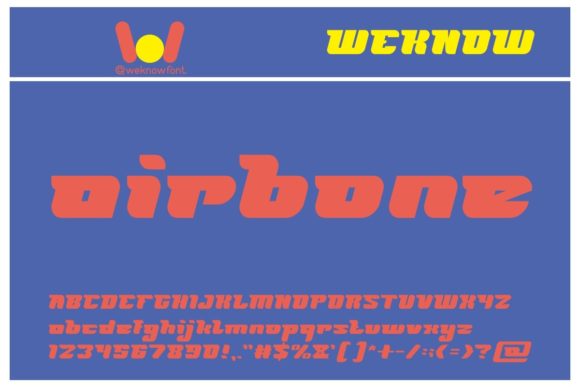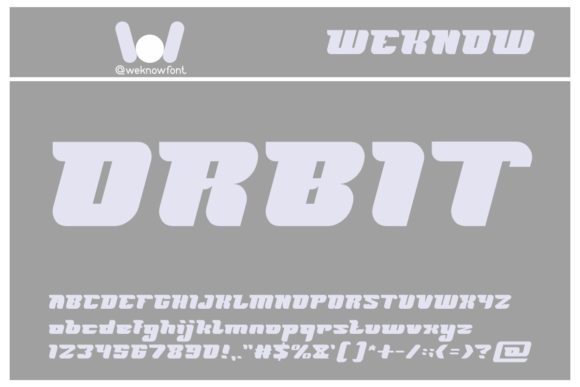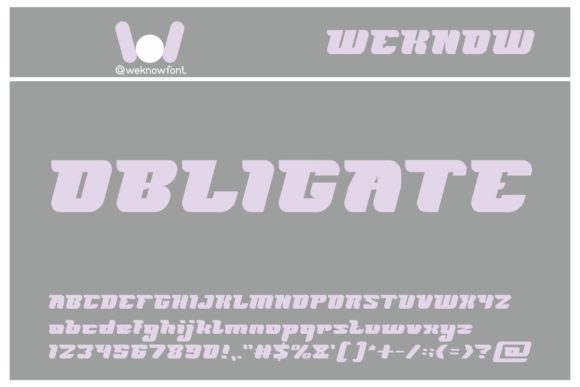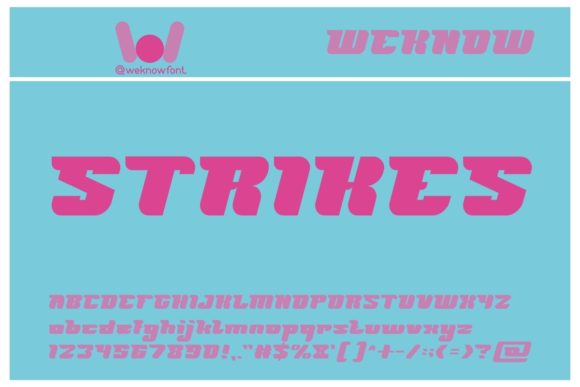
The Future of Typography: Introducing Futurism Font
Have you ever been scrolling through your social media feed, and suddenly a post catches your eye because of its bold, futuristic typography? You might have been mesmerized by a logo or headline that screams innovation and progress. That’s the magic of the Futurism Font, a techno-sci-fi themed font that’s perfect for designers looking to give their projects a cutting-edge feel.
As a designer, you know how crucial the right font can be in setting the tone for your creative project. That’s why the Futurism Font is such a valuable asset. With its sleek, modern design, it’s ideal for logos, logotypes, headlines, and corporate identities. Whether you’re working on a movie poster, a music album cover, or a website, the Futurism Font is sure to make your design stand out from the crowd.
Futurism Font Key Features
- Font Family: Futurism Font is a sans-serif font family with 12 styles, including regular, bold, italic, and bold italic.
- Character Count: The font family contains over 1,300 glyphs, including Latin, Cyrillic, and Greek alphabets, as well as various punctuation marks and symbols.
- Unique Characteristics: Features a distinctive geometric shape with clean lines, rounded edges, and a futuristic feel, making it ideal for sci-fi, technology, and modern design projects.
- Language Support: Supports multiple languages, including English, Spanish, French, German, Italian, Portuguese, and many others, making it a versatile choice for global design applications.
Futurism Font Review
Futurism Font is a bold and eye-catching typeface that grabs attention. ✨ The sleek lines and geometric shapes make it perfect for futuristic or sci-fi themed projects. The font’s versatility allows it to be used in a wide range of applications, from logos to headings.
- Works well in bold and large sizes, making it perfect for headings and titles.
- Suitable for futuristic, sci-fi, and technology-related projects.
- Available in various weights and styles, allowing for customization.
However, there are some limitations to consider. ⚠️ The font may be too bold for smaller text, making it difficult to read. Additionally, the geometric shapes can make it challenging to use in more traditional or classic designs. The font’s limited language support is another drawback, which may be a concern for multilingual projects.
Overall, Futurism Font is a great choice for projects that require a bold and futuristic feel. While it may have some limitations, its unique style and versatility make it a valuable addition to any designer’s toolkit.
Tips for Getting the Most Out of Futurism Font
Use Futurism font to create bold, futuristic headings and titles. Pair it with a clean and simple font for body text to create visual contrast. Experiment with different font sizes and colors to create a unique look.
Futurism font is perfect for:
– Creating futuristic and high-tech designs
– Designing science fiction and space-themed projects
– Adding a touch of futurism to your branding and marketing materials